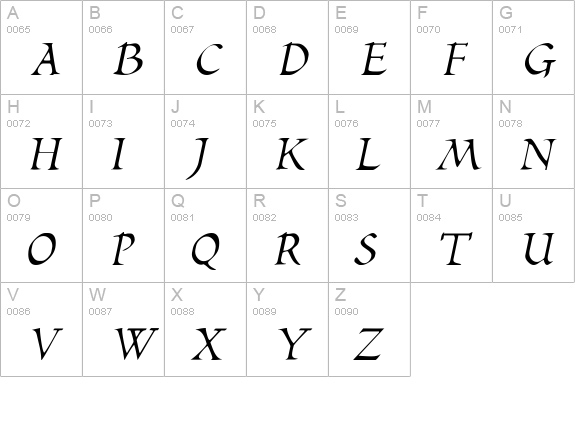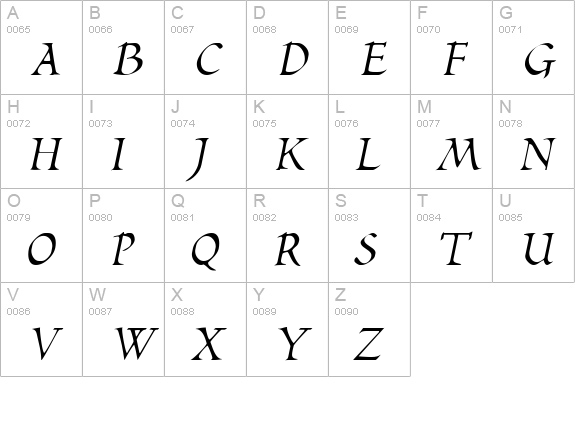
BilboDisplay Italic Font Details
BilboDisplay Italic is a distinctive, italic variant in the BilboDisplay typeface family \xE2\x80\x94 well suited to design and typography projects.
BilboDisplay Italic font is a stunning and elegant typeface that exudes sophistication and charm. Its delicate and graceful curves give it a unique and distinctive look that is perfect for adding a touch of class to any design project. Whether you're creating invitations, posters, or branding materials, BilboDisplay Italic will elevate your work to new heights. The best part? This beautiful font is available for free download at FontsMarket.com. So why wait? Add BilboDisplay Italic to your font collection today and unleash your creativity with this exquisite typeface.